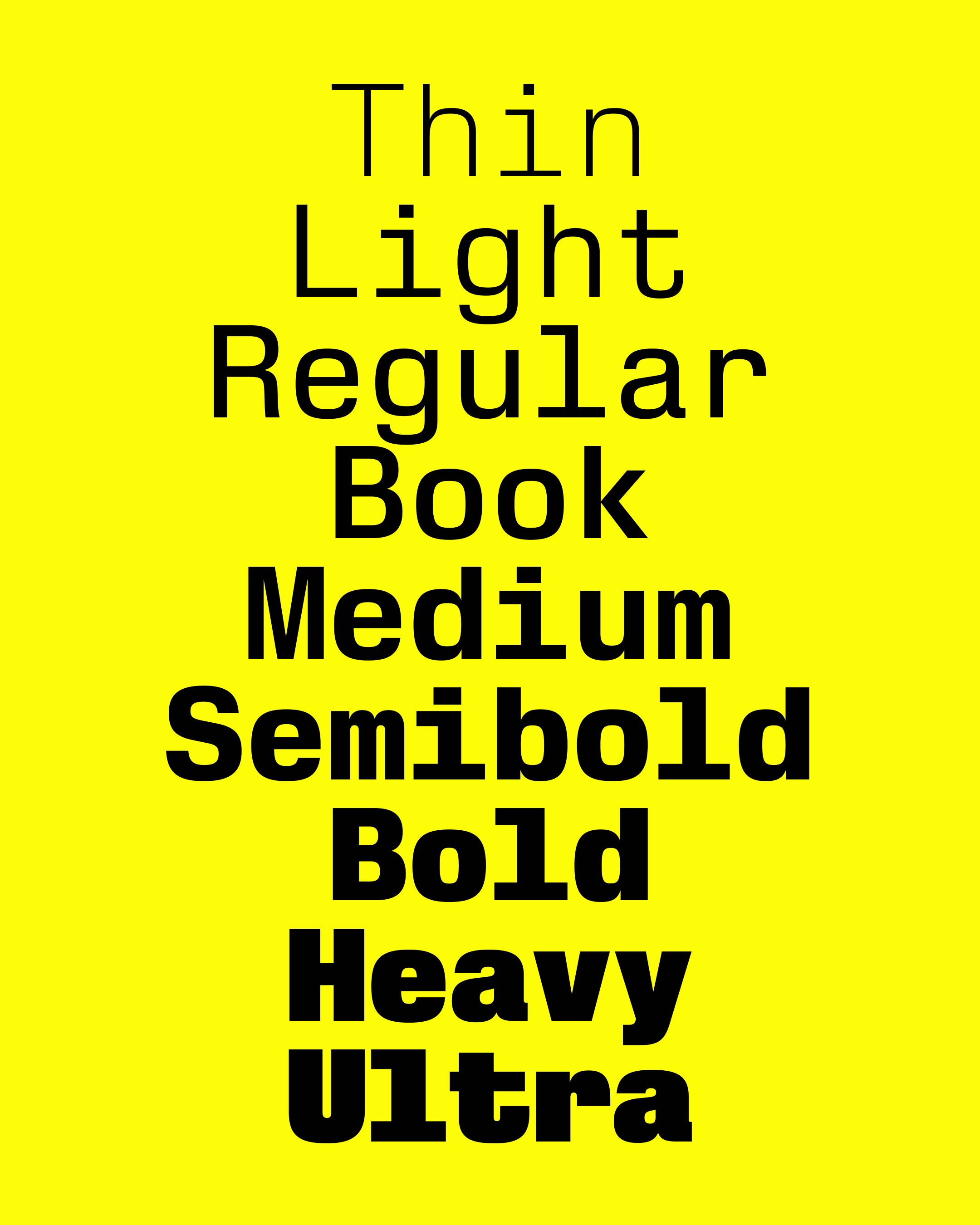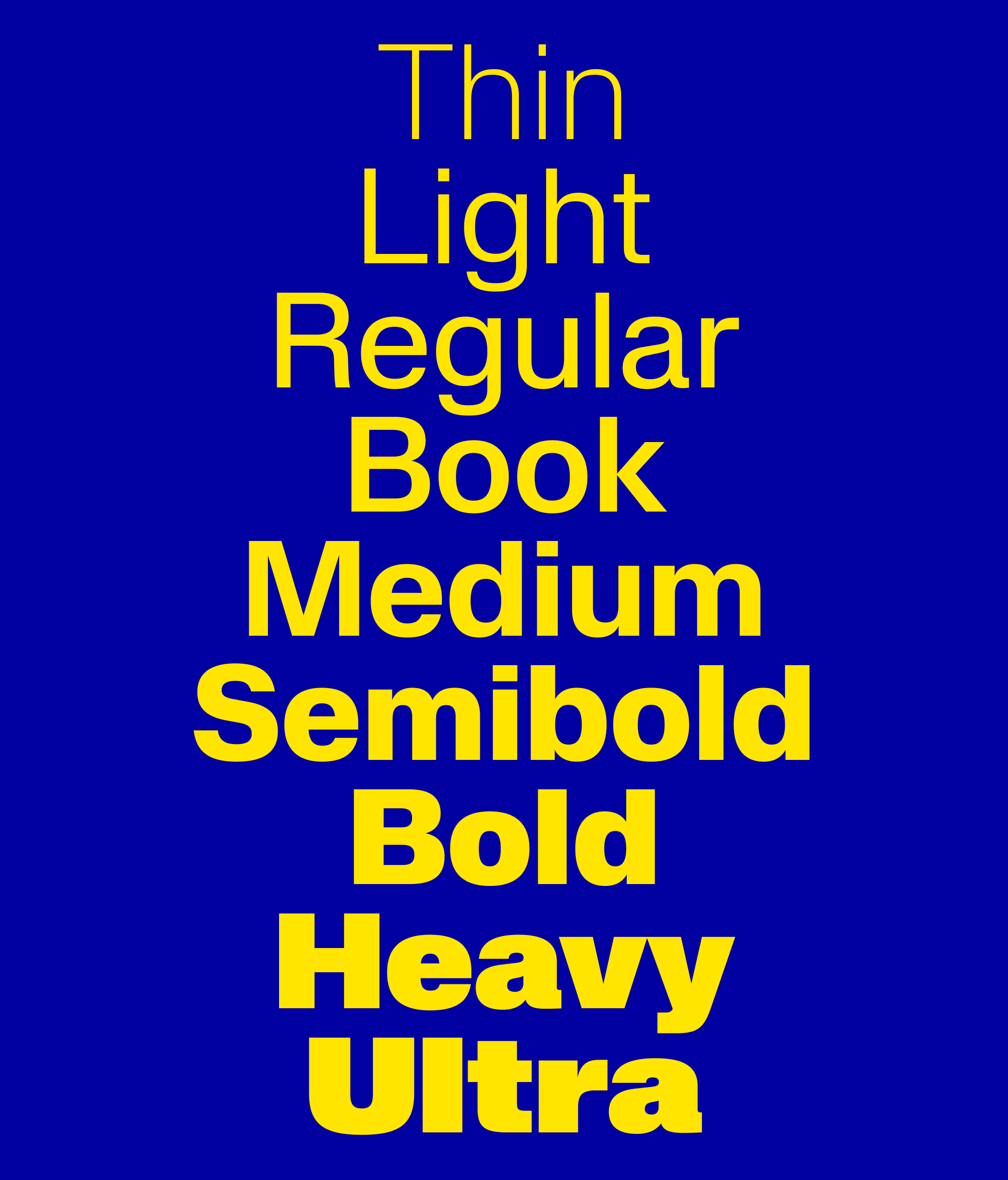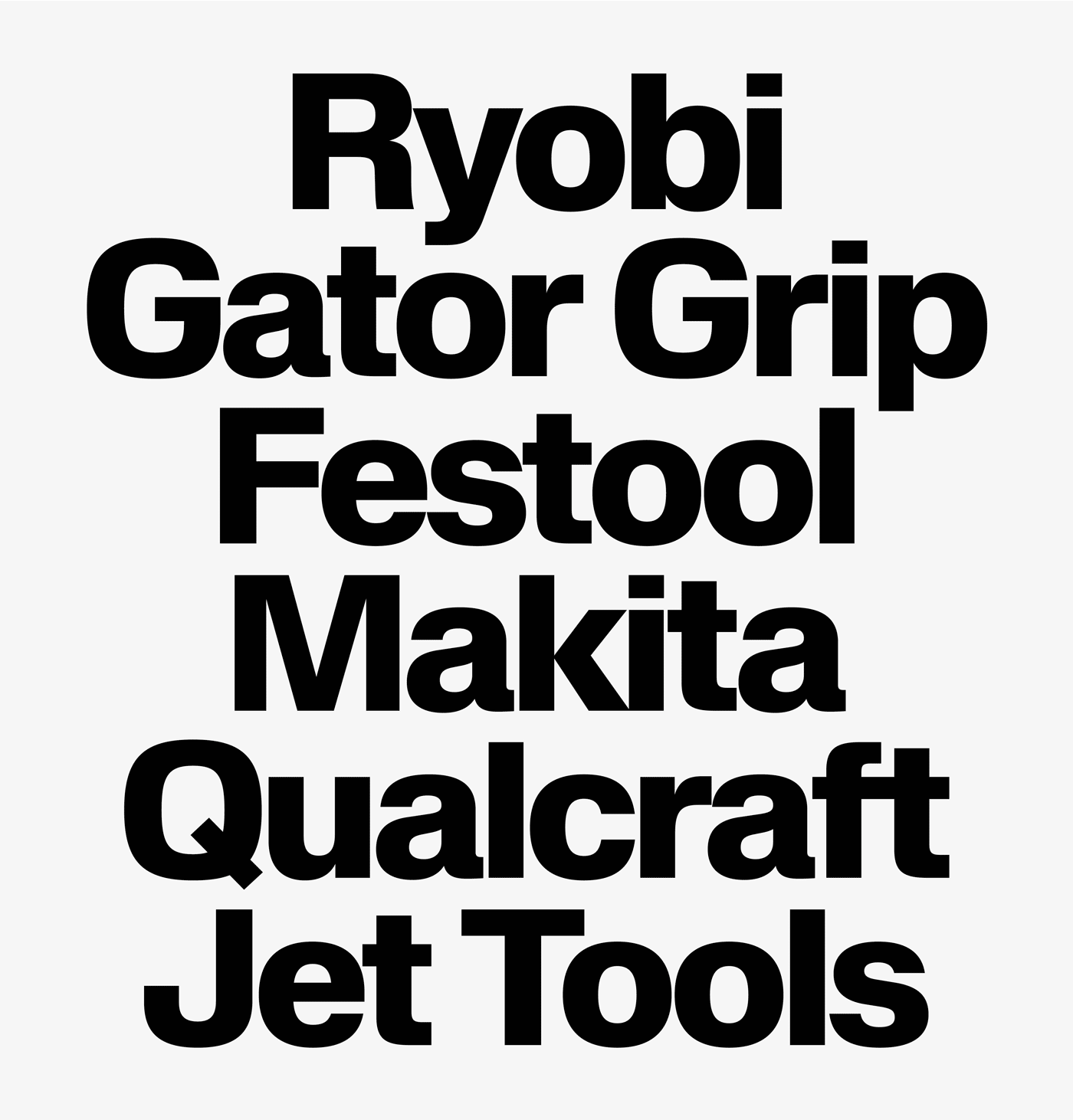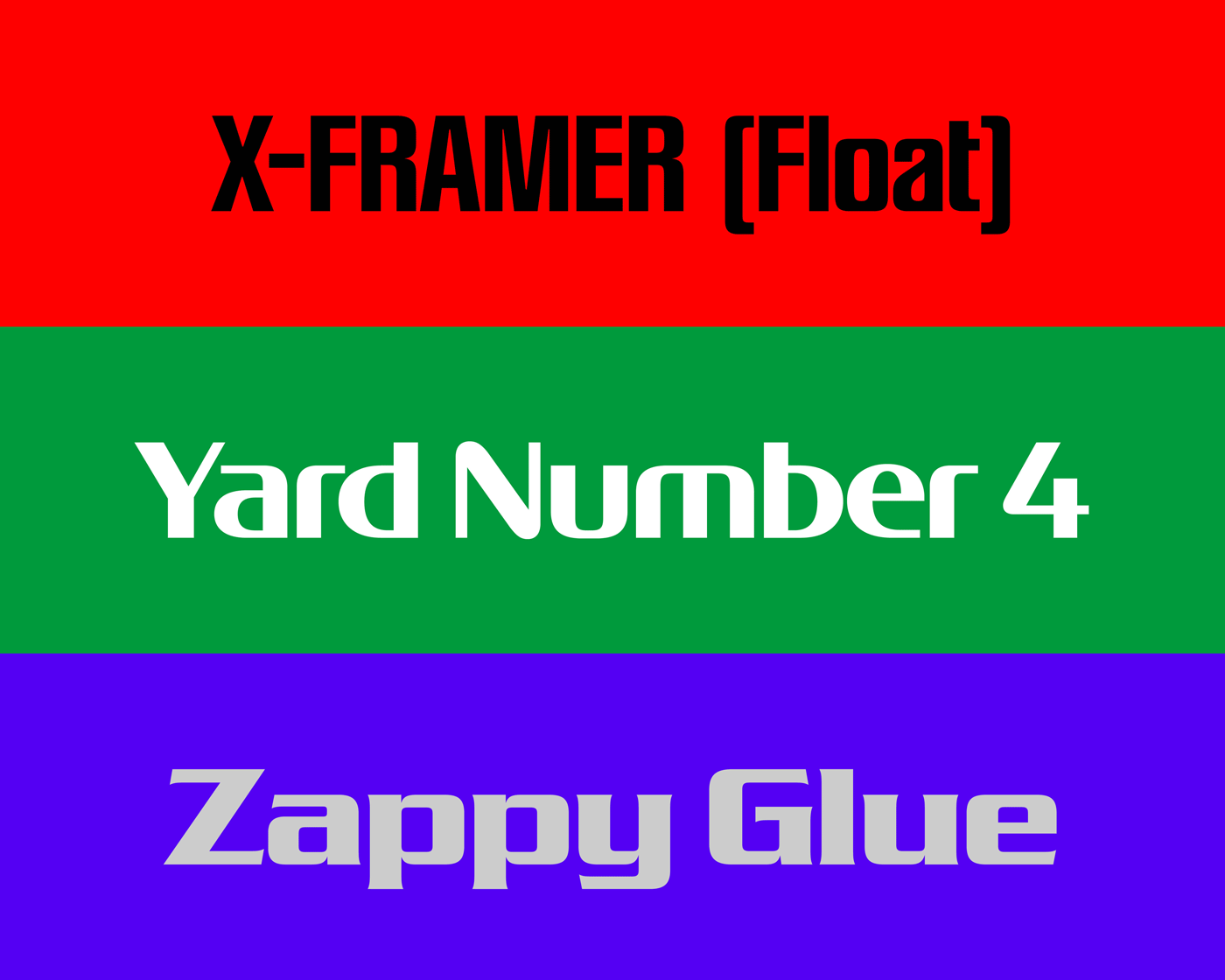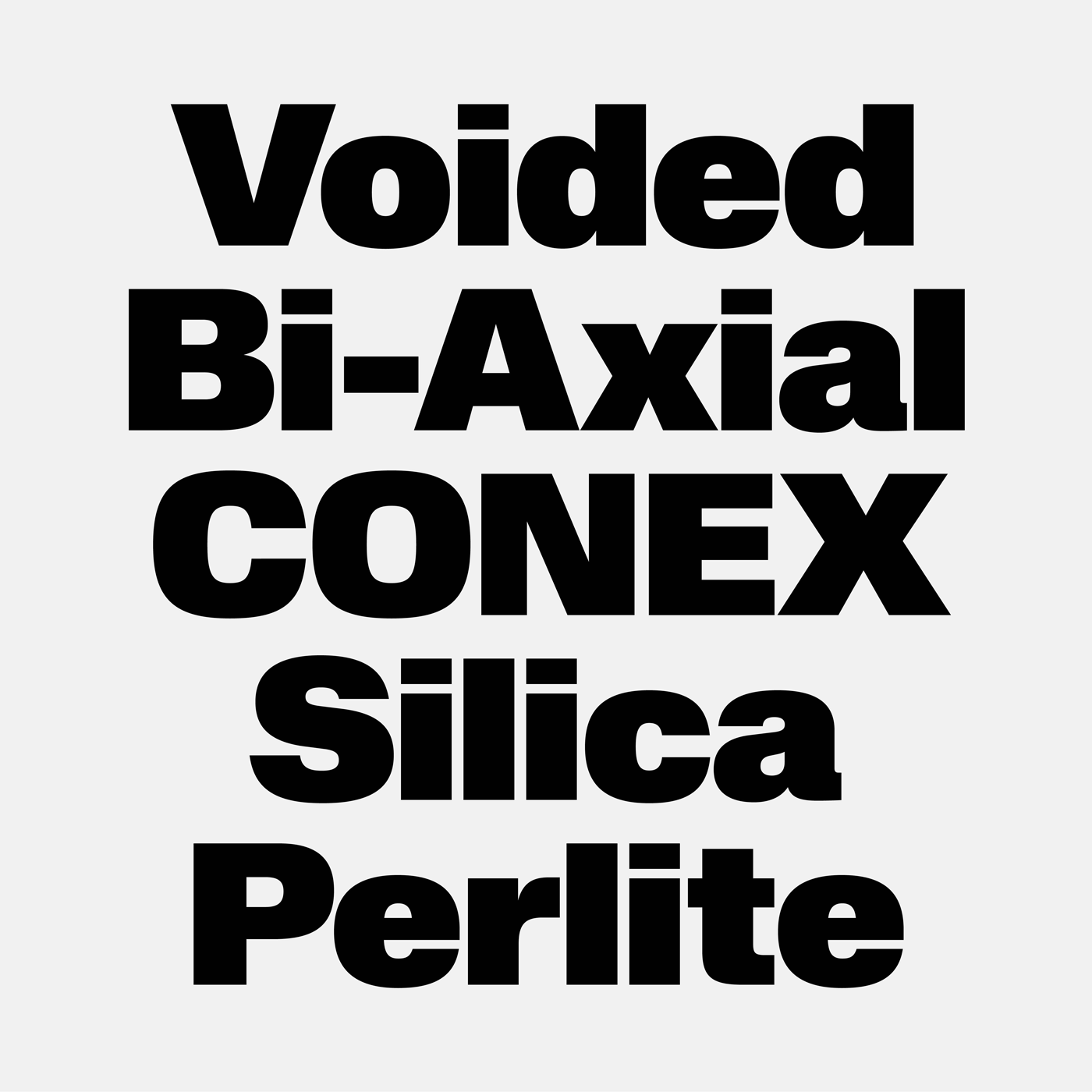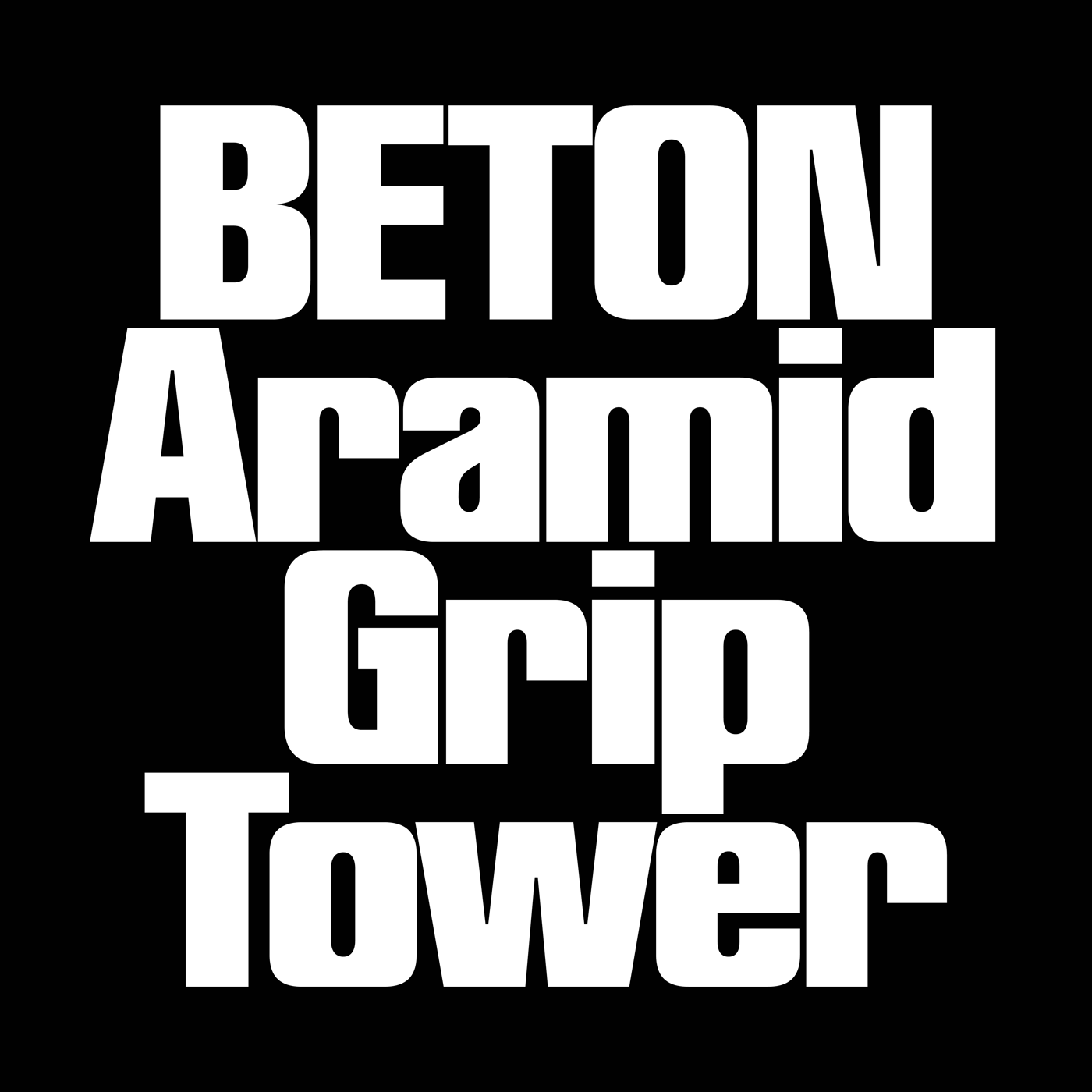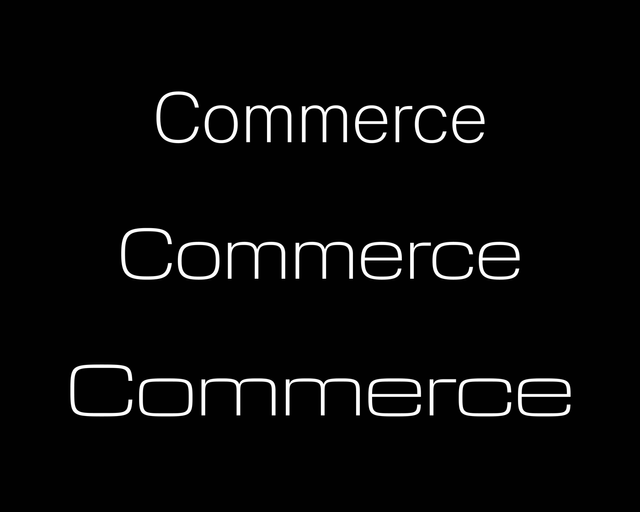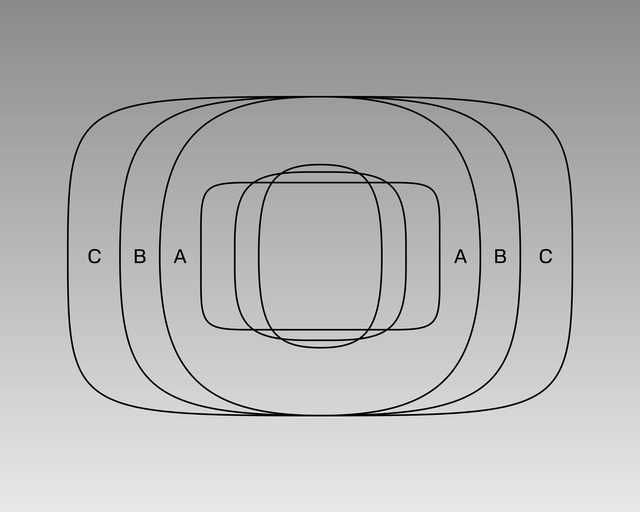
Seb, who’s already published Ginto, Marist, and ROM on the Dinamo label, returns with not just one typeface, but an entire collection. Please welcome ABC Schengen.
What began as a mixed revival of some of Seb’s favourite typefaces has evolved into an investigation-stroke-celebration of the Eurozone’s visual language, through its logistics, manufacturing, and construction industries. Over the course of 6 years, together with the steady and very talented hands of Luke Charsley, Schengen has developed into a large, extra-large, really-quite-big project spanning weights, widths and genres.
ABC Schengen & Schengen ABC
At the heart of Schengen is a love for two of Europe’s most influential and genre-defining typefaces. Helvetica: the (type)face that launched a thousand shipping containers, and Eurostile: font but make it TV.
And they make a really great team. Eurostile cuts down the pine in the Landes forest and Helvetica hauls the planks to the Port of Rotterdam. Helvetica bottles the water in Bergamo and Eurostile ships it same-day to a LIDL outside of Beveren. Goods and services, production and distribution.
These titans of industry are thrown into a mixer and out pours liquid Schengen.
This probably isn’t ok, they’re not meant to be together, right? Schengen’s square capital shapes and more circular lowercase forms sit together with a palpable will-they-won’t-they tension. But it turns out yes, the chief financial officer is dating the warehouse manager – and yes, they’re very much in love.
Map to the fonts
Traffic flows through Europe
Transport’s “Big Four”
The Schengen Area comprises 29 European countries — 25 EU states plus Iceland, Liechtenstein, Norway, and Switzerland — that have abolished internal border controls, allowing free movement.
ABC Schengen’s free-moving, free-trading family members.
The 3 families Schengen A, Schengen B, and Schengen C are tied within one design space (and of course there’s a Variable Font). Put simply, this introduces a width axis to the project that allows you to slide along and fine-tune the output as you desire: as the characters become wider, the aesthetic shifts and the Eurostile influence gets heavier, stretching Schengen A’s bubblewrap envelope around C’s steel shipping container, with B nestled comfortably in the middle (inside a cardboard box?).
Not satisfied dealing only in letters of varied widths, all three families of Schengen have monospaced equivalents (also variably linked). Boxier than the proportional families, these weights are closer to vibey Signor Novarese than straight-talking Herr Miedinger, with alternate Eurostile “r” and “t” glyphs embracing his sci-fi fantasy.
Each family has 9 weights: Thin, Light, Regular, Book(!), Medium, Semibold(!!!), Bold, Heavy, and Ultra(!!!!!!). Along with italics, Schengen ABC + Schengen ABC Mono forms a hefty package of 108 total weights, covering the Latin, Greek and Cyrillic scripts that make up the Eurozone, ensuring no family business, plucky startup or faceless multinational will be short of ways to deliver for key stakeholders, willing audiences and slightly concerned shareholders. Schengen works inside a flatpack furniture assembly manual, Schengen works outside a vape kiosk shop window, Schengen (probably) works on the side of a cargo ship.
Carrying wide chunks of monospaced Schengen
The Schengen Cinematic Universe
One of the core inspirations for Schengen is the great work of people considered outsiders by those “in” design, and the typefaces they use. We’re talking what’s in the sketchy “Font$” folder of every “vinyl signage, promotions, web design, logo design, large format printing and bespoke solutions” company in every town in Europe. These people don’t have Most Beautiful Books, their TDC is Targeted Data Collection, and they certainly don’t have time to waste reading newsletters about fonts – because they’re busy using them.
They’re hard at work making a logo for a concrete pipe importer incorporating the letters XJM, a cheetah’s head, 3 gold stars, and the Polish flag, it needs to look good moving between 70 to 100 kilometres per hour and, most importantly, it needs to be delivered by 9am tomorrow. These masterworks are made inside a sunless office, in a light industrial park, off a ring-road just outside Dresden. This is WhereDesignHappens™. The project is managed, the priorities are aligned, the clients are satisfied, and there’s no need to circle back. It’s cool because it’s real, and it’s real because it’s cool. It’s folk typography, jobbing typography, with fonts chosen by the people, for the people.
Zone, Line, Core
Serpentine, the 1972 underrated masterpiece by Dick Jensen, or Peignot, the smashmouth-hit by A. M. Cassandre, or Walter Haettenschweiler’s ... Haettenschweiler – all these typefaces you’ve seen, loved and probably forgotten about have been reassembled, reinforced, remodelled, reconfigured, reconstructed, rebuilt, reworked and revived into three families that are simultaneously their own thing and still very much part of der Schengen-Raum.
Schengen on the road